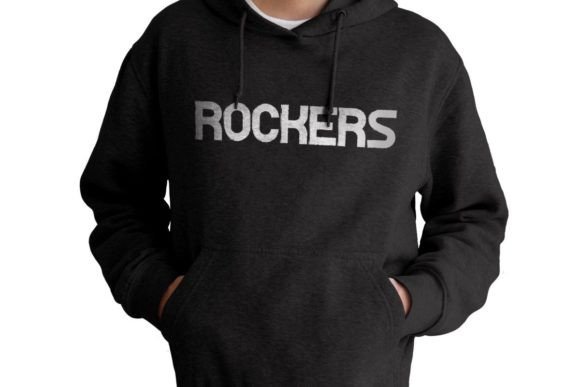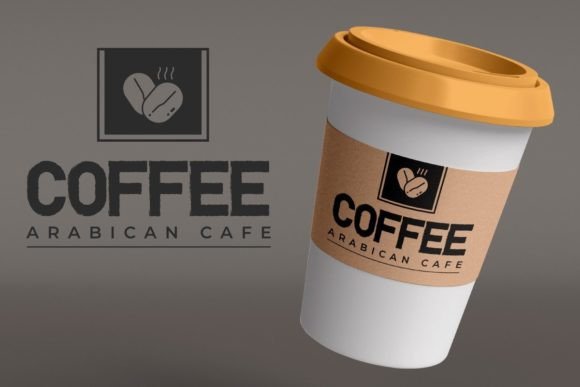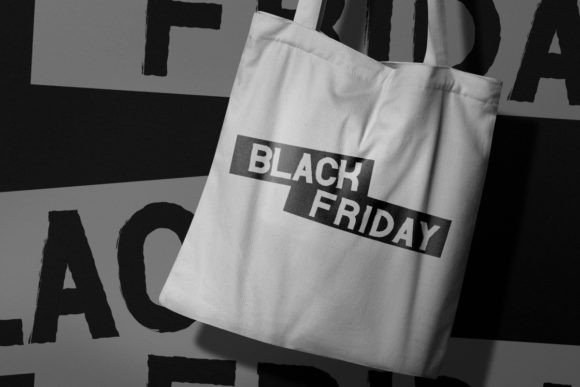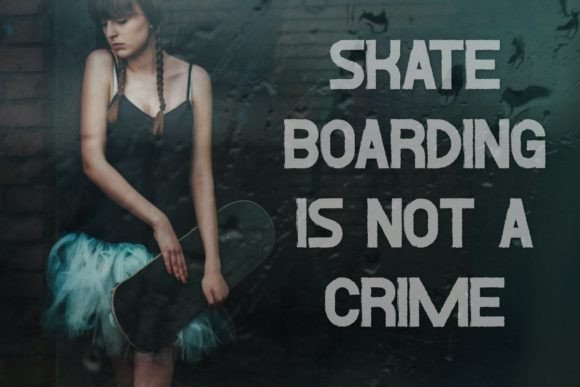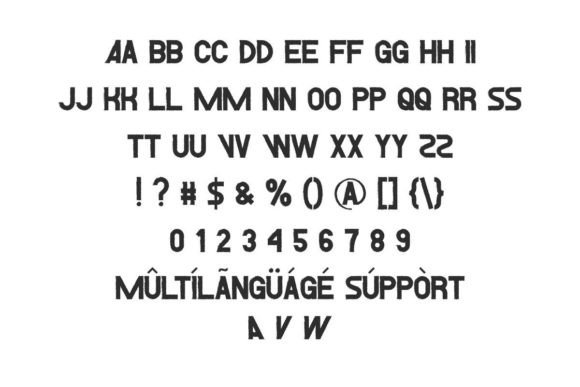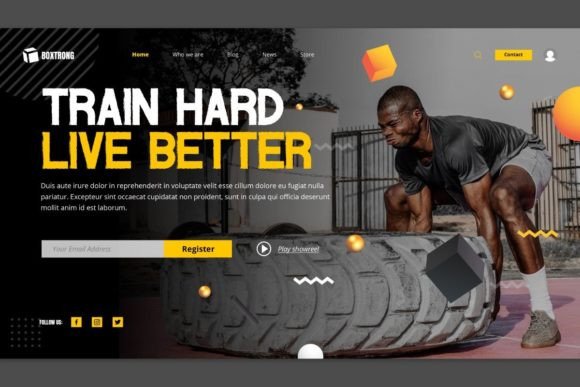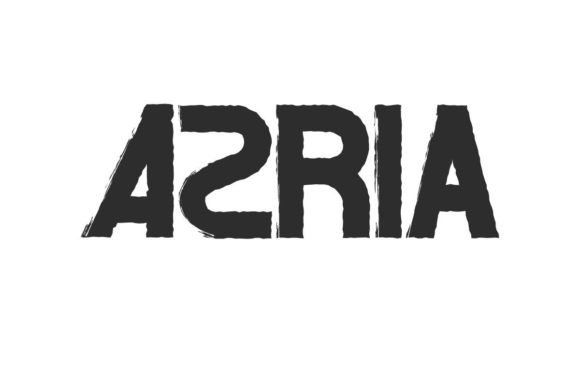
Unleash the Horror: Introducing Azria Font
Are you a designer or crafter looking for a unique and eye-catching font to elevate your projects? Look no further than Azria Font, a display sans serif font with a horror brush that is sure to make your designs stand out. In this article, we’ll dive into the features and benefits of Azria Font, and explore how it can be used to take your projects to the next level.
What is Azria Font?
Azria Font is a display sans serif font that combines the clean lines of a sans serif font with the bold, expressive strokes of a horror brush. The result is a font that is both modern and eerie, perfect for designers and crafters who want to add a touch of horror to their projects. With its unique blend of styles, Azria Font is sure to grab attention and leave a lasting impression.
Features of Azria Font
So, what makes Azria Font so special? Here are just a few of its key features:
• Display sans serif font: Azria Font is a sans serif font, which means it doesn’t have the small lines or flourishes that you often see at the ends of letters. This gives it a clean, modern look that is perfect for headlines and titles.
• Horror brush effect: The horror brush effect gives Azria Font a bold, expressive look that is sure to grab attention. The brush strokes are rough and textured, giving the font a hand-crafted feel.
• Versatile: Azria Font is a versatile font that can be used for a wide range of projects, from brochures and fashion designs to headlines, lettering, logo branding, product packaging, signage, and websites.
Benefits of Using Azria Font
So, why should you choose Azria Font for your next project? Here are just a few benefits of using this unique font:
• Adds a touch of horror: Azria Font is perfect for designers and crafters who want to add a touch of horror to their projects. Whether you’re creating a spooky Halloween design or just want to add some edge to your work, Azria Font is a great choice.
• Grabs attention: The bold, expressive strokes of Azria Font are sure to grab attention and leave a lasting impression. Whether you’re creating a headline, title, or logo, Azria Font is a great way to make your design stand out.
Project Ideas for Azria Font
So, what can you create with Azria Font? Here are just a few project ideas to get you started:
• Brochures: Use Azria Font to create eye-catching headlines and titles for your brochures. Its bold, expressive strokes are sure to grab attention and draw readers in.
• Fashion designs: Azria Font is a great choice for fashion designers who want to add a touch of horror to their designs. Use it to create bold, eye-catching logos or titles for your fashion brand.
• Headlines: Azria Font is perfect for creating bold, attention-grabbing headlines for your website, blog, or social media channels.
• Lettering: Use Azria Font to create unique and expressive lettering for your projects. Its horror brush effect gives it a hand-crafted feel that’s perfect for adding a personal touch to your designs.
• Logo branding: Azria Font is a great choice for logo branding, particularly for businesses that want to add a touch of horror to their brand. Use it to create a bold, eye-catching logo that will help your business stand out.
• Product packaging: Use Azria Font to create eye-catching titles and labels for your product packaging. Its bold, expressive strokes are sure to grab attention and make your products stand out.
• Signage: Azria Font is a great choice for signage, particularly for businesses that want to add a touch of horror to their brand. Use it to create bold, eye-catching signs that will help your business stand out.
• Websites: Use Azria Font to create bold, attention-grabbing headlines and titles for your website. Its horror brush effect gives it a unique and expressive look that’s sure to make your website stand out.
Font Name Azria Font
In conclusion, Azria Font is a unique and expressive display sans serif font with a horror brush that is sure to elevate your designs. With its bold, expressive strokes and versatile design, Azria Font is perfect for a wide range of projects, from brochures and fashion designs to headlines, lettering, logo branding, product packaging, signage, and websites. So why not give Azria Font a try and see how it can help take your designs to the next level?